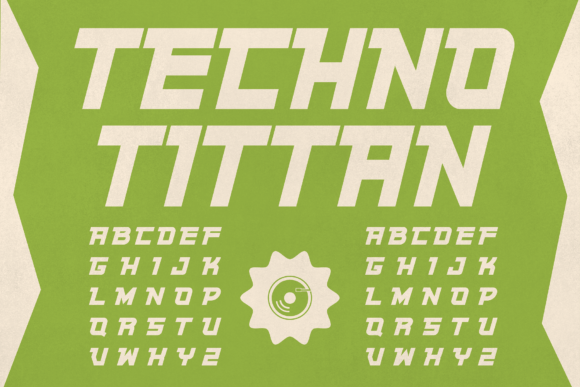
In a world of mundane fonts, Techno Titan emerges as a commanding force, exuding strength and power that will leave your designs radiating with boldness. With its vintage and classic design aesthetic, this font is a perfect choice for projects demanding a striking and unforgettable look.
Picture this: a sleek and precise font, each letter meticulously crafted to give off a futuristic vibe that is perfect for modern designs. The unique blend of sharp edges and smooth curves creates a mesmerizing visual symphony that will capture the attention of anyone who lays their eyes upon it.
With Techno Titan as your design ally, you'll have the power to craft gaming logos that command attention and leave a lasting impression. Its bold and striking appearance will make your designs stand out from the crowd, ensuring that your message is heard loud and clear.
More than just a font, Techno Titan is an experience that will transform your creative vision into a tangible masterpiece. It's the perfect choice for those who dare to be different, who seek to make a statement with their typography.
"Techno Titan is the ultimate weapon in my design arsenal. It's bold, it's powerful, and it makes my designs look like they're straight out of a sci-fi movie. Can't imagine working without it!" - Jake, Graphic Designer
"I've tried countless fonts, but nothing compares to the sheer impact of Techno Titan. It's the perfect font for creating gaming logos that demand attention. My clients love it, and so do I." - Sarah, Freelance Logo Designer